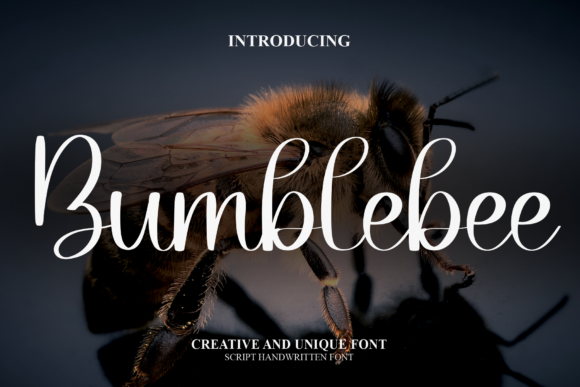
Introducing Bumblebee Font - A Handcrafted Script Font for Modern Designers
Prepare to be captivated by Bumblebee Font, a charming and delightful script font that exudes playful elegance. Step into a world of creativity where your designs blossom with a unique and enchanting touch.
Bumblebee Font: A Story of Beauty and Precision
Crafted with meticulous care by the esteemed Strongkeng Old, Bumblebee Font is not just a font; it's an art form. Each letter is meticulously designed to evoke a sense of playfulness and sophistication, ensuring your designs stand out from the crowd.
Beyond Aesthetics: The Power of Bumblebee Font
Bumblebee Font is more than just visually appealing; it's a tool that empowers you to communicate effectively and leave a lasting impression. Its versatility knows no bounds, making it the perfect choice for a wide range of design projects, including:
- Logos and Branding: Create logos and branding that captivates audiences, leaving an unforgettable mark on their minds. Bumblebee Font's unique charm adds a touch of personality that sets your brand apart.
- Social Media Graphics: Engage your followers with eye-catching social media graphics that pop. Bumblebee Font's playful nature instantly grabs attention, driving engagement and expanding your reach.
- Invitations and Cards: Craft stunning invitations and cards that evoke a sense of joy and excitement. Bumblebee Font's delicate strokes add a personal touch, making every occasion unforgettable.
- Product Packaging: Elevate your product packaging with Bumblebee Font's whimsical appeal. Its ability to transform ordinary packaging into works of art will leave customers delighted and eager to discover what's inside.
- Web Design: Create websites that exude creativity and charm. Bumblebee Font's unique style adds a touch of artistry to your digital presence, capturing visitors' attention and enhancing their browsing experience.
Why Choose Bumblebee Font?
- Designed for Retina Displays: Bumblebee Font is optimized for retina displays, ensuring crisp and stunning visuals on high-resolution screens. Your designs will shine with unparalleled clarity and detail.
- Extensive Language Support: Bumblebee Font boasts extensive language support, making it suitable for a global audience. Communicate with customers from different cultures and backgrounds, breaking down language barriers and expanding your reach.
Embrace the Sweetness of Bumblebee Font
Bumblebee Font is more than just a font; it's an invitation to embark on a creative adventure. Its enchanting strokes and playful spirit will transform your designs into masterpieces, captivating audiences and leaving a lasting impression.